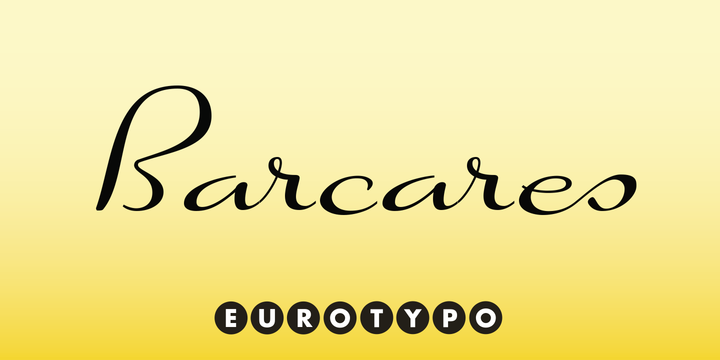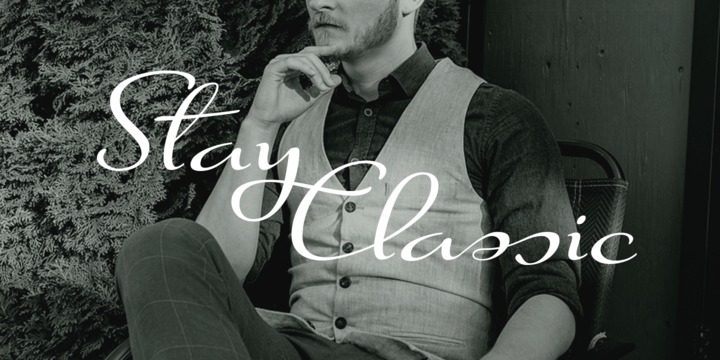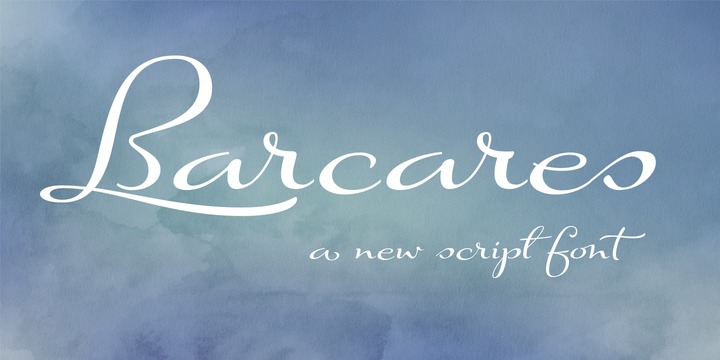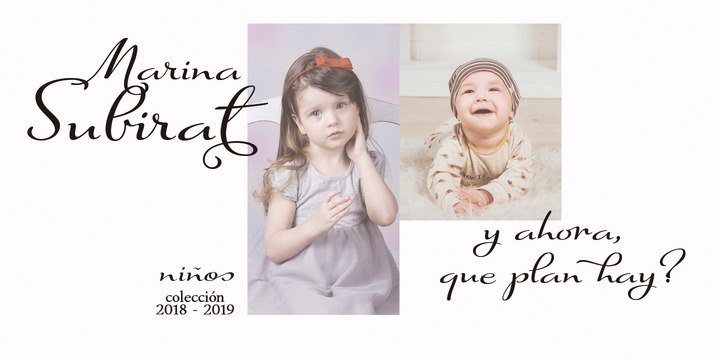
Barcares is based on an old lettering posters These writings had flowing lines, elegant curves and flourishes, which can produce a lot of rhythm and unique personality.
Using this font you will achieve a very elegant and warm work. It is thin, feminine, friendly and sexy. The font Barcares support Central, Eastern and Western European languages, it contain 637 glyphs with many stylistic variations, swashes, ligatures in all its letters, and a set of interesting catchwords that you can mix and match to achieve a more interesting effect in your design project.
Barcares is a very versatile font, ideal for high-end logos, magazines and book covers, fashion, headlines, cards, posters, websites, packaging, etc.